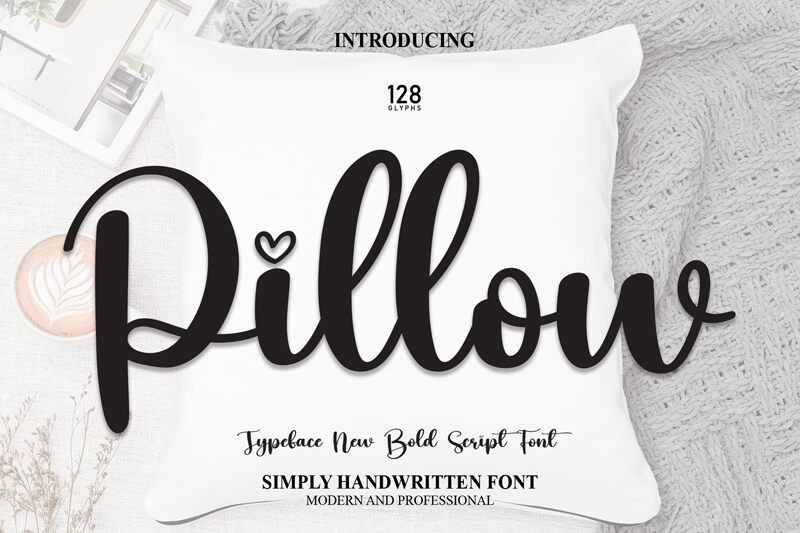
Pillow
Pillow, a delightful creation by Scratchones, is a cute calligraphy font that adds a touch of whimsy to any project.
With its semi-bold weight, Pillow exudes charm and elegance, making it perfect for invitations, greeting cards, and wedding stationery. Its playful strokes bring life to children's books and nursery decor. Pillow's versatility shines through in branding projects for boutique stores or cafes looking to capture a sense of warmth and friendliness.
Let this enchanting font elevate your designs with its captivating and endearing presence.
The latest style letters are perfect for wall displays, wedding invitations, social media post logos, advertisements, product packaging, product designs, labels, photography, watermarks, invitations, stationery, and any project that requires taste handwriting.
With its semi-bold weight, Pillow exudes charm and elegance, making it perfect for invitations, greeting cards, and wedding stationery. Its playful strokes bring life to children's books and nursery decor. Pillow's versatility shines through in branding projects for boutique stores or cafes looking to capture a sense of warmth and friendliness.
Let this enchanting font elevate your designs with its captivating and endearing presence.
The latest style letters are perfect for wall displays, wedding invitations, social media post logos, advertisements, product packaging, product designs, labels, photography, watermarks, invitations, stationery, and any project that requires taste handwriting.